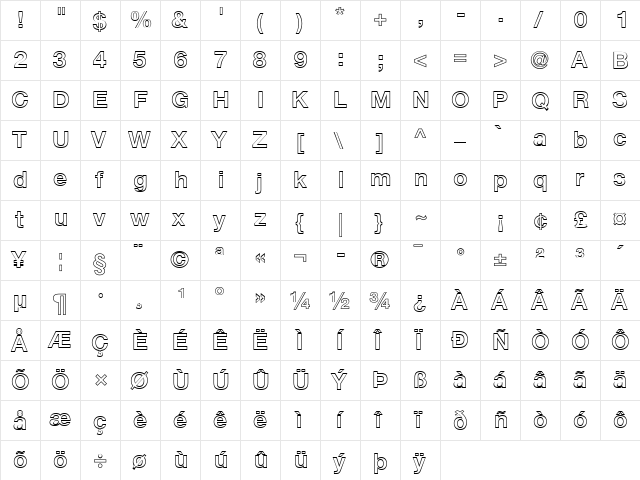
Helvetica Neue LT Com 75 Bold Outline
| Foundry | Linotype GmbH |
| Designer | Linotype Design Studio |
Design Context for Helvetica Neue LT Com Typeface
Helvetica Neue LT Com brings ornamental detail and strong personality to headlines and identities, where visual impact matters more than quiet functionality. Its bold stroke weight gives it real presence on the page.
Font Pairing: Pair with a clean neutral sans-serif for body copy to let Helvetica Neue LT Com's character lead without overwhelming the composition.
Pro Tip: Use Helvetica Neue LT Com exclusively at display sizes — it was designed to be seen, not read at length. Let a neutral companion handle body copy.